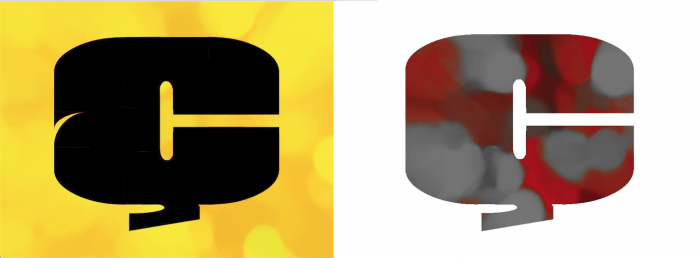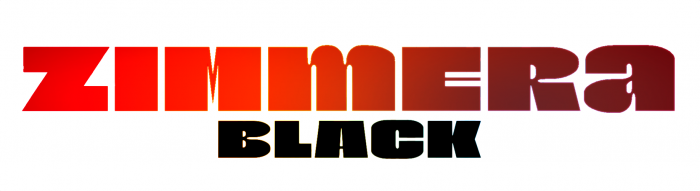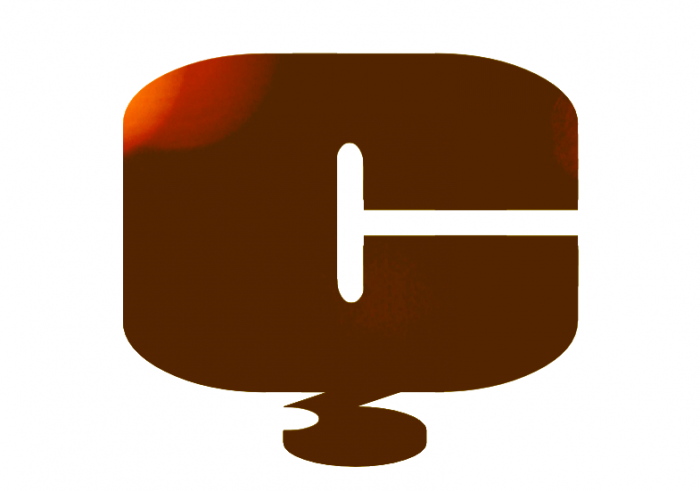
This is zimmera without scratches, more usable for general purposes. Thanks to frongile for encouraging me to add it here. Hope you like it.
Nice and refreshing. I like both versions. The C with cedilla is too small. Don't be afraid of having descender space. Lovely special characters. This font could have been a very strong entry to HeavyComp. 10/10
@Dear Master Frodo7: Thank you very much once again for your always kind and appreciative comments. You are right about the cedilla, I must find a way to make it a little bigger and better. And yes, this was originally an attempt for the Comp, but I didn't have time to properly solve some design difficulties (the counters -which were narrower and then widened-, the connection between sides in U, n, a, and other letters, scratches, and a few other details), so it was left out, like some other font that you will see soon. My brain was only thinking in thick letters at the time.
New Ç added.
I like the second, simplified C-with-cedilla version. It suits the font style better. Congratulations to the TP. Well done.
Congratz Elmo, definitely deserving the special mention, as this is a solid break-away from recent FS trends, very refreshing indeed as Frodo already said.